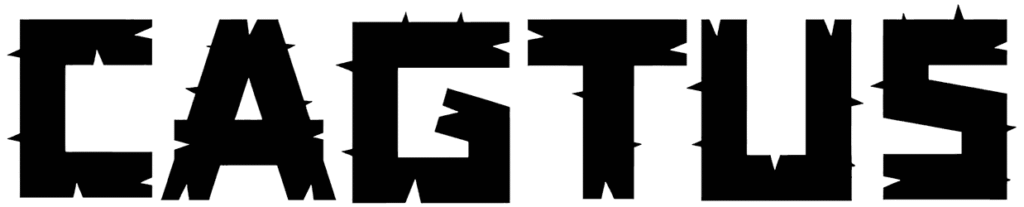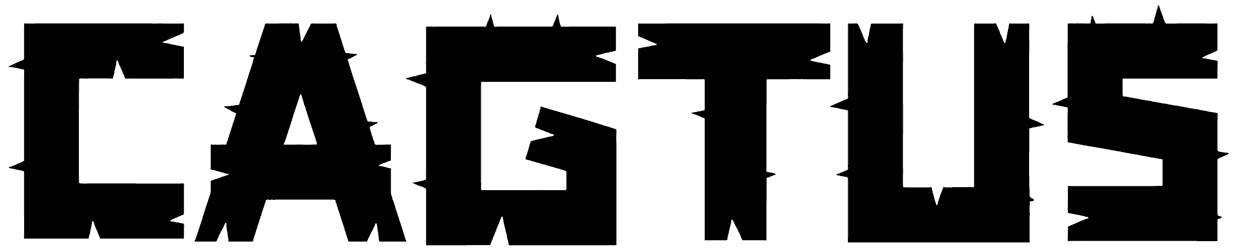
Cagtus Font
Cagtus is an eye-catching cactus font that comes with geometrical letters and has the real ability to play a pivotal role in your visual identity. Aside from the lack of lowercase letters, this square font can be your reliable assistant in the realm of designing social media posts, book covers, illustrations, digital banners, or logos.
The flattering point about this masterpiece is that it can share a sense of jauntiness, breathtaking vivacity, or momentum with the audience.